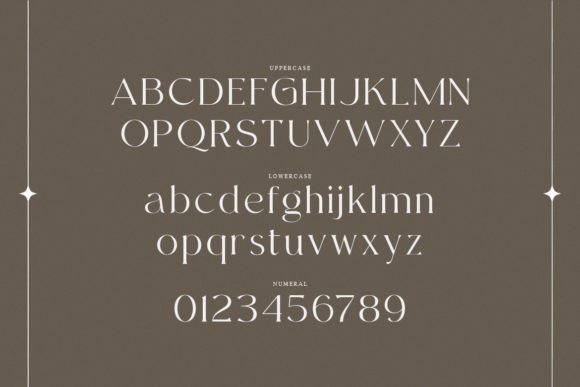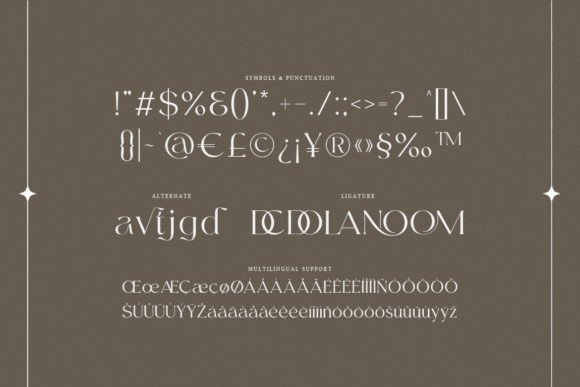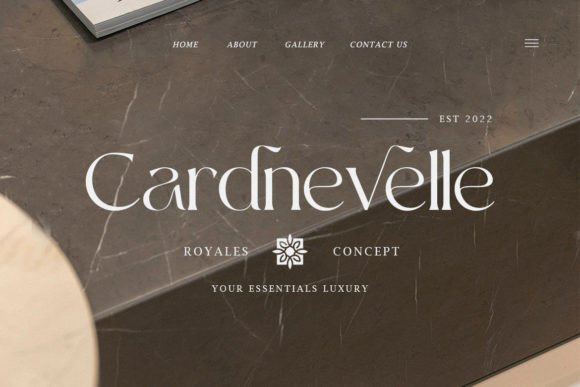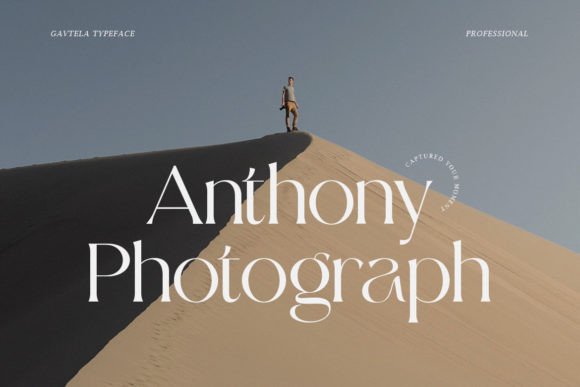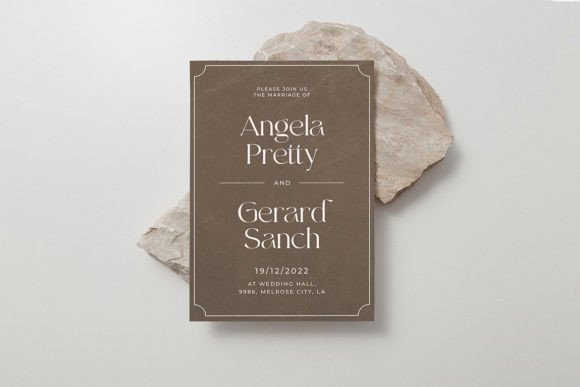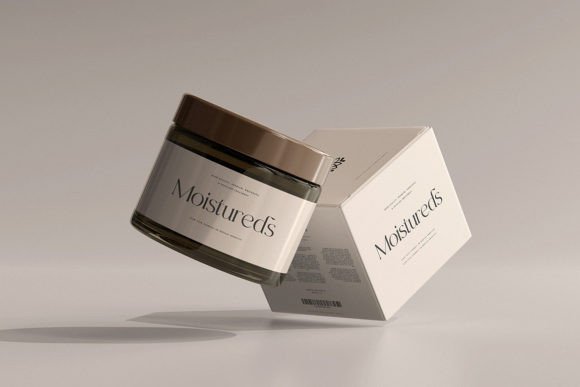
Gavtela Font: Elevate Your Designs with Elegance and Versatility
In the world of typography, fonts play a crucial role in conveying the tone and personality of a design. Among the numerous fonts available, Gavtela stands out as a masterpiece of elegance and versatility. This expressive, stylish, and elegant serif font has captured the hearts of designers and crafters alike, and for good reason. In this article, we’ll dive into the world of Gavtela Font, exploring its distinct features, uses, and benefits.
The Distinct Characteristics of Gavtela Font
Gavtela Font boasts a unique blend of classic and modern elements, making it a standout in the realm of serif fonts. Its distinct and well-balanced letters are carefully crafted to exude an air of sophistication and refinement. The font’s elegant lines, precise curves, and harmonious proportions create a visually stunning effect that is sure to captivate audiences.
One of the most significant advantages of Gavtela Font is its incredible versatility. This font can effortlessly adapt to various design contexts, from luxurious branding and high-end advertising to elegant editorial design and refined packaging. Whether you’re creating a sophisticated business card, a stylish magazine layout, or a beautiful wedding invitation, Gavtela Font is the perfect choice.
Why Designers and Crafters Love Gavtela Font
So, what makes Gavtela Font a favorite among designers and crafters? Here are a few reasons:
- Expressive and Stylish: Gavtela Font’s unique character set allows designers to add a touch of personality to their creations, making it perfect for projects that require a dash of elegance and whimsy.
- Elegant and Refined: The font’s classic serif design and precise lines evoke a sense of sophistication, making it ideal for high-end branding, luxury packaging, and editorial design.
- Legible and Readable: Despite its ornate appearance, Gavtela Font remains highly legible and readable, ensuring that your message is conveyed clearly and effectively.
Tips for Using Gavtela Font Effectively
To get the most out of Gavtela Font, here are some expert tips:
- Pair it with contrasting fonts: Combine Gavtela Font with sans-serif fonts or script fonts to create visually appealing contrast and add depth to your design.
- Experiment with font sizes: Play with different font sizes to create hierarchy and emphasize key elements in your design.
- Pay attention to color: Choose colors that complement the font’s elegant and refined aesthetic, such as rich jewel tones or muted neutrals.
In conclusion, Gavtela Font is a true masterpiece of typography, offering a unique blend of elegance, versatility, and expressiveness. Its distinct and well-balanced letters make it a joy to work with, and its incredible versatility ensures that it can be used in a wide range of design contexts. Whether you’re a designer, crafter, or simply a typography enthusiast, Gavtela Font is sure to captivate and inspire. So, fall in love with Gavtela Font and use it to create spectacular designs that leave a lasting impression!
Here are some frequently asked questions about Gavtela Font:
- What type of font is Gavtela?: Gavtela is a serif font, characterized by its classic and elegant design.
- Is Gavtela Font suitable for body text?: While Gavtela Font is highly legible, it’s best suited for headlines, titles, and short paragraphs. For longer body text, consider pairing it with a more straightforward font.